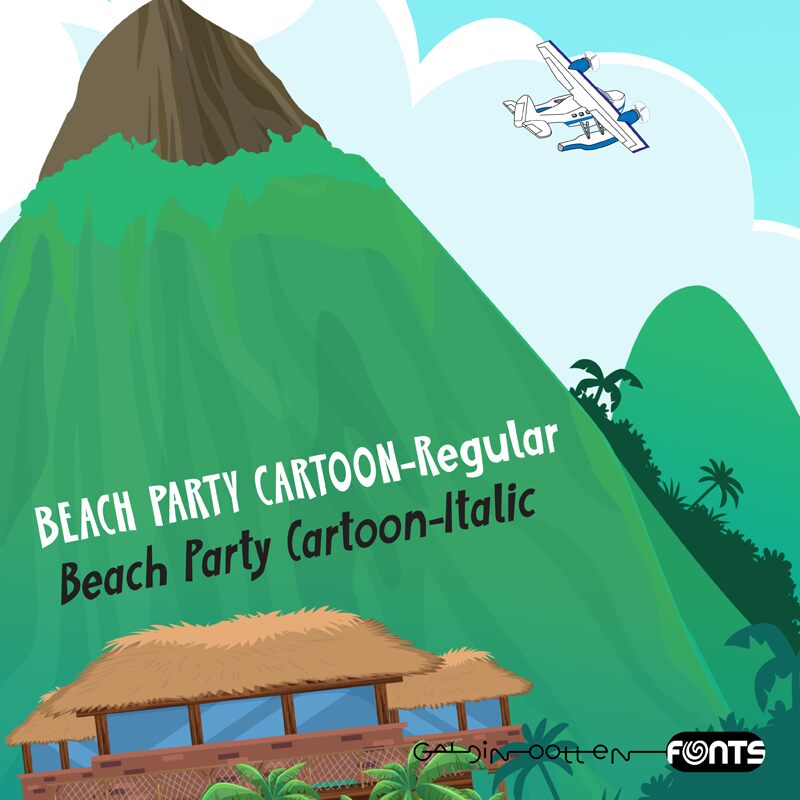
Beach Party Cartoon Italic
Beach Party Cartoon Italic font by Galdino Otten Fonts is a retro-inspired colorful hand font with an energetic and casual tone. It has slightly italicized letters and numbers that can be recognized for their bubbly outlines that evoke a sense of fun and leisure. Its stylish appearance makes this free display typeface quite the memorable one.